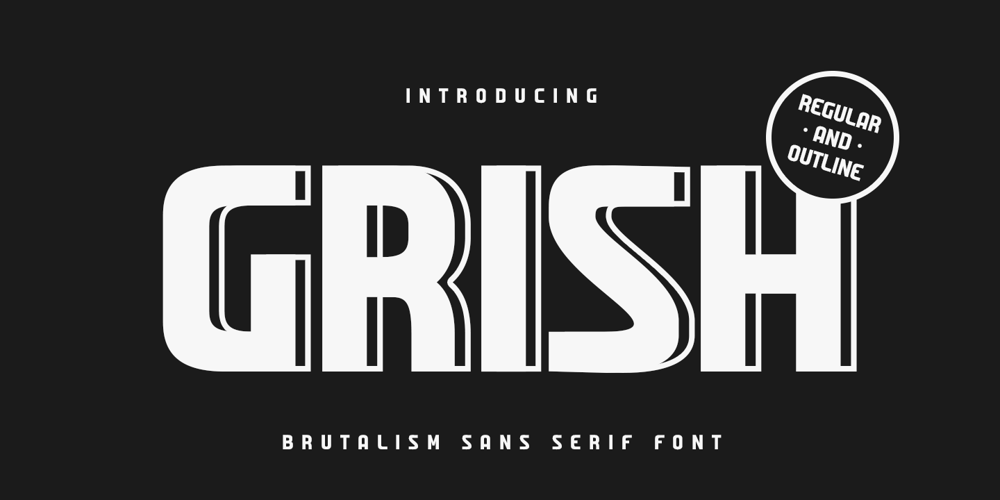
Grish Font Family was designed by Zamroni Hamzah and published by Sensatype Studio. Grish contains 2 styles and family package options. A Modern Sans serif font are prepared special for action, bold, and sport design needs.A new Sans serif font that we created special for Headline, Title and more stand out typography needs, with extra outline that will add your variations. It’s so perfect to add your style and headline overview. And specially for Brisk font, we crafted for futuristic style and modern feels so enjoy to create any project that will show your main idea out.Grish Brutalism Sans Serif Font ready with: Any options to get creative variations (combination of Outline Characters) Preview as a inspirations that you can do with Grish font Ready with Uppercase and Lowercase characters Wish you enjoy our font. ๐